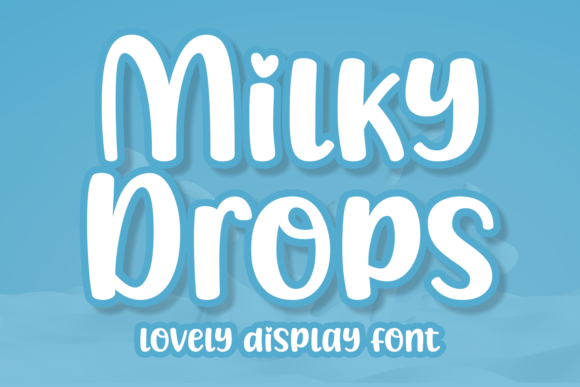
Discover the Charm of Milky Drops Font
If you're looking for a font that brings a sense of warmth and playfulness to your designs, Milky Drops might be just what you need. This cute and chubby display font has a cartoon-like aesthetic that can add a unique touch to any project. Whether you're working on packaging, branding, or digital content, Milky Drops offers a fresh and engaging way to present your message.
What Makes Milky Drops Stand Out
Milky Drops is more than just a font—it's a visual statement. Its rounded edges and soft curves give it a friendly and approachable look that can make even the most serious designs feel more inviting. The font’s boldness and simplicity make it easy to read while still maintaining a distinctive character that catches the eye.
One of the key strengths of Milky Drops is its versatility. It works well in both large and small sizes, making it suitable for everything from headlines to body text. The font also has a consistent stroke width, which helps maintain readability without sacrificing style.
Key Characteristics of Milky Drops
- Chubby and Rounded Design: The font's rounded shapes create a sense of friendliness and approachability.
- Cartoon-Like Aesthetic: Ideal for projects that aim to evoke a playful or whimsical mood.
- High Readability: Despite its stylized appearance, Milky Drops remains easy to read at various sizes.
- Modern and Fresh Look: The font brings a contemporary feel that can modernize traditional designs.
Practical Applications of Milky Drops
Whether you're designing for a farm product, a food menu, or a marketing campaign, Milky Drops can help you stand out. Its visual appeal makes it particularly well-suited for industries that rely on strong branding and visual identity. For example, farmers or local producers can use this font on their packaging to create a memorable and recognizable brand presence.
In the food and beverage industry, Milky Drops can enhance menus, labels, and promotional materials. Its playful design can complement the fun and casual nature of many restaurant or café brands. Similarly, in the world of posters and covers, this font can draw attention and communicate a message with a touch of charm.
Real-World Use Cases
- Farm Product Packaging: Use Milky Drops on labels for jams, honey, or artisanal products to highlight their natural and handmade qualities.
- Branding and Logos: Incorporate the font into logos for businesses that want to convey a sense of warmth and reliability.
- Food and Drink Menus: Add a unique flair to menus in cafes, bakeries, or specialty shops to make them more visually appealing.
- Posters and Covers: Use the font for event posters, book covers, or social media graphics to create an eye-catching design.
Benefits of Using Milky Drops
Choosing the right font can have a significant impact on how your message is received. Milky Drops offers several benefits that make it a valuable addition to any designer's toolkit. One of the main advantages is its ability to engage audiences. The font's friendly and approachable look can make your content feel more relatable and trustworthy.
Another benefit is its ease of use. Because it's a display font, it's best suited for short text elements like headlines, titles, and captions. This means you don't have to worry about overcomplicating your layout—Milky Drops can shine without overwhelming the reader.
Considerations When Using Milky Drops
While Milky Drops is a great choice for many projects, it's important to consider the context in which it will be used. The font may not be ideal for formal or professional settings where a more traditional typeface would be expected. However, for creative or casual projects, it can be a powerful tool.
When selecting fonts for a project, always test them in different sizes and environments. Make sure they work well with other design elements and that they align with the overall tone of your work. For instance, if you're creating a logo for a high-end brand, you may want to pair Milky Drops with a more refined typeface to balance the styles.
Why Choose Milky Drops for Your Projects
Milky Drops is more than just a pretty font—it's a practical solution for designers who want to add personality and charm to their work. Its combination of readability, style, and versatility makes it a valuable asset across a wide range of applications. Whether you're working on a personal project or a commercial campaign, this font can help you make a lasting impression.
As you explore different fonts, keep in mind that the right choice depends on your goals and audience. If you're looking for a font that feels warm, friendly, and expressive, Milky Drops could be the perfect fit. By using it thoughtfully, you can enhance your designs and create a more engaging experience for your viewers.